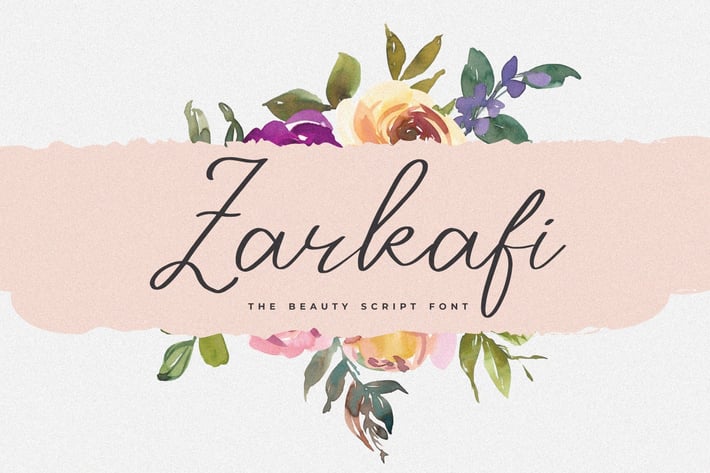
Zarkafi - The Beauty Script Font
Zarkafi - The Beauty Script Font. It comes with an elegant, cute and feminine style which is perfect to make any design stand out! This font is perfect for branding, wedding invites, magazines, mugs, business cards, quotes, posters, and more.
Zarkafi Script Type Features:
- Numerals & Punctuations
- Suitable for Headlines, Logotypes, Signs, Posters, Letterhead, T-Shirt and many more.
- Support Western Europe Language